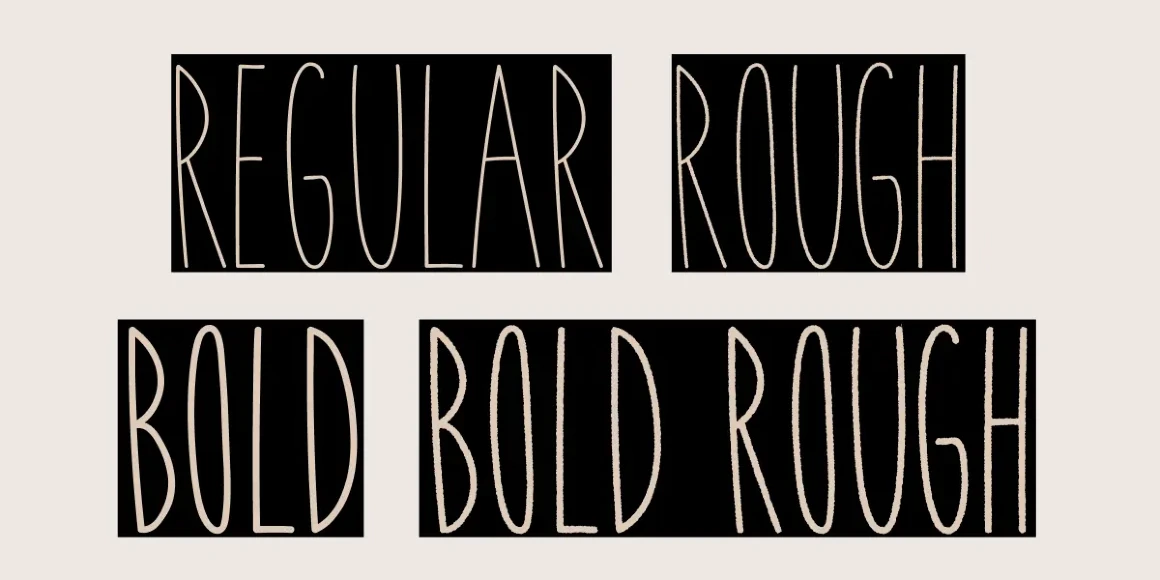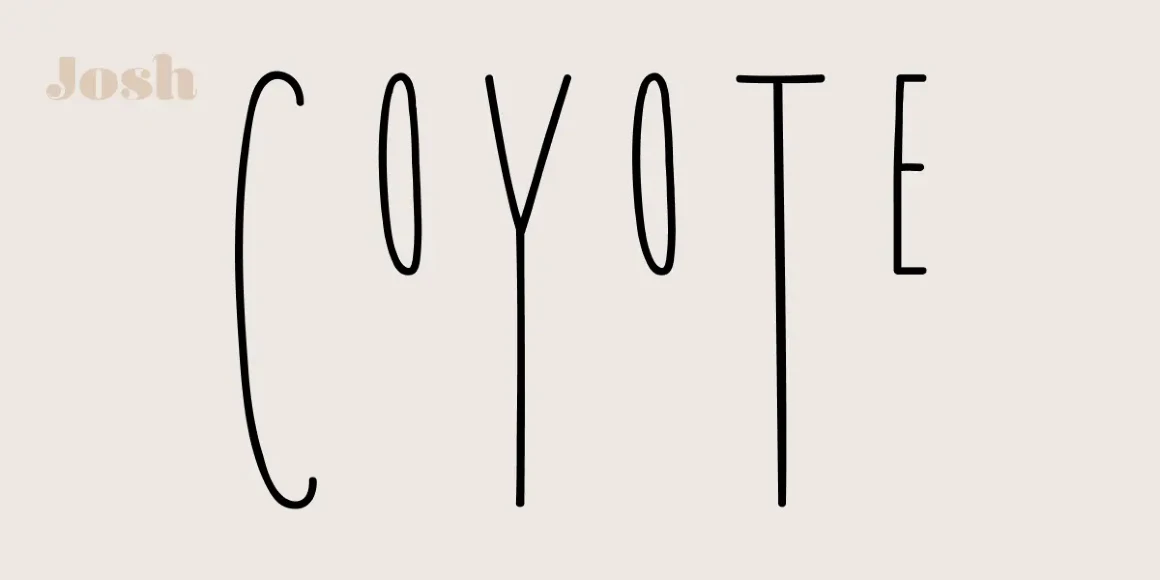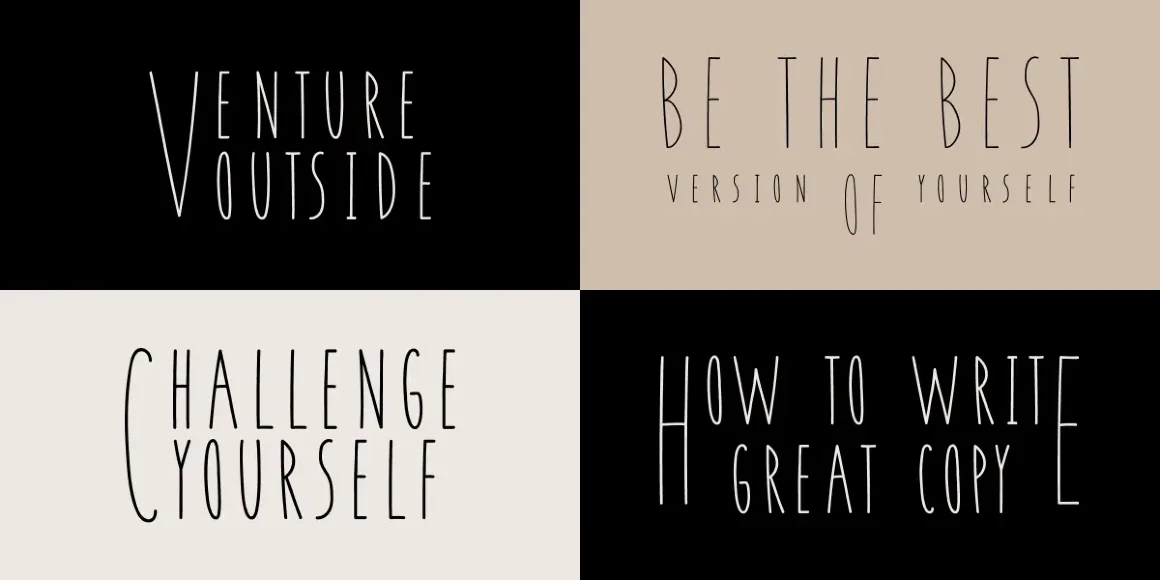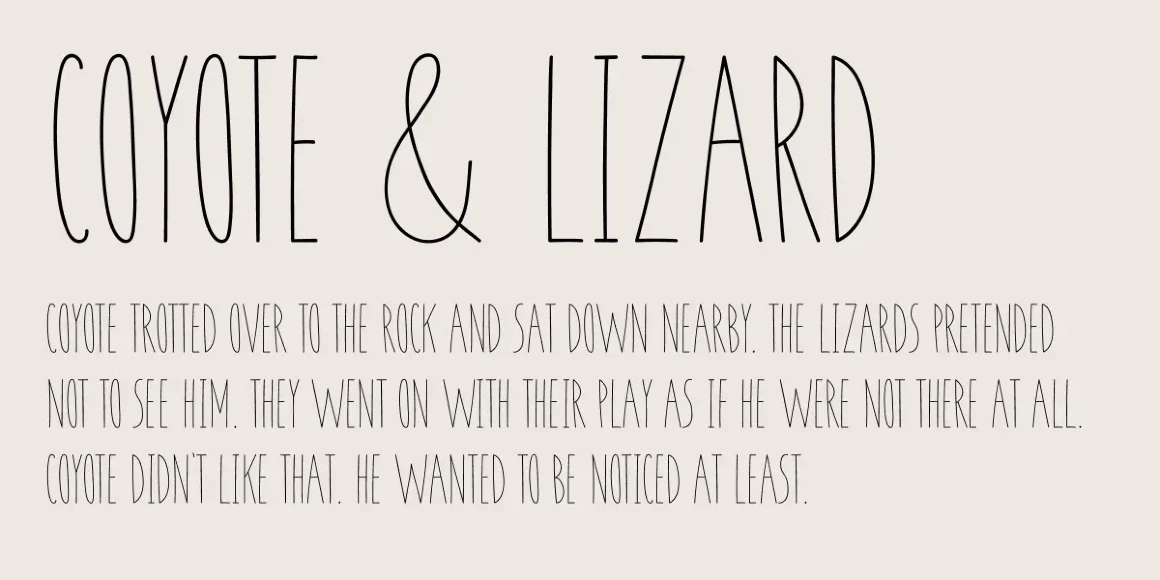
Coyote
By Josh Ownby
Coyote Bold
Coyote Bold Rough
Coyote Regular
Coyote Rough
Coyote is a fun, handwritten font that’s perfect for adding a handmade touch to your designs on invitations, cups, posters, wall decals, logos, quotes, and more. Coyote is an uppercase font with small caps for its lowercase, so you can play with and mix characters to create unique designs for any purpose. Frame words, create drop caps, or keep it simple with uppercase characters. Rough versions are included, too, for even more flexibility and creative control over your designs.